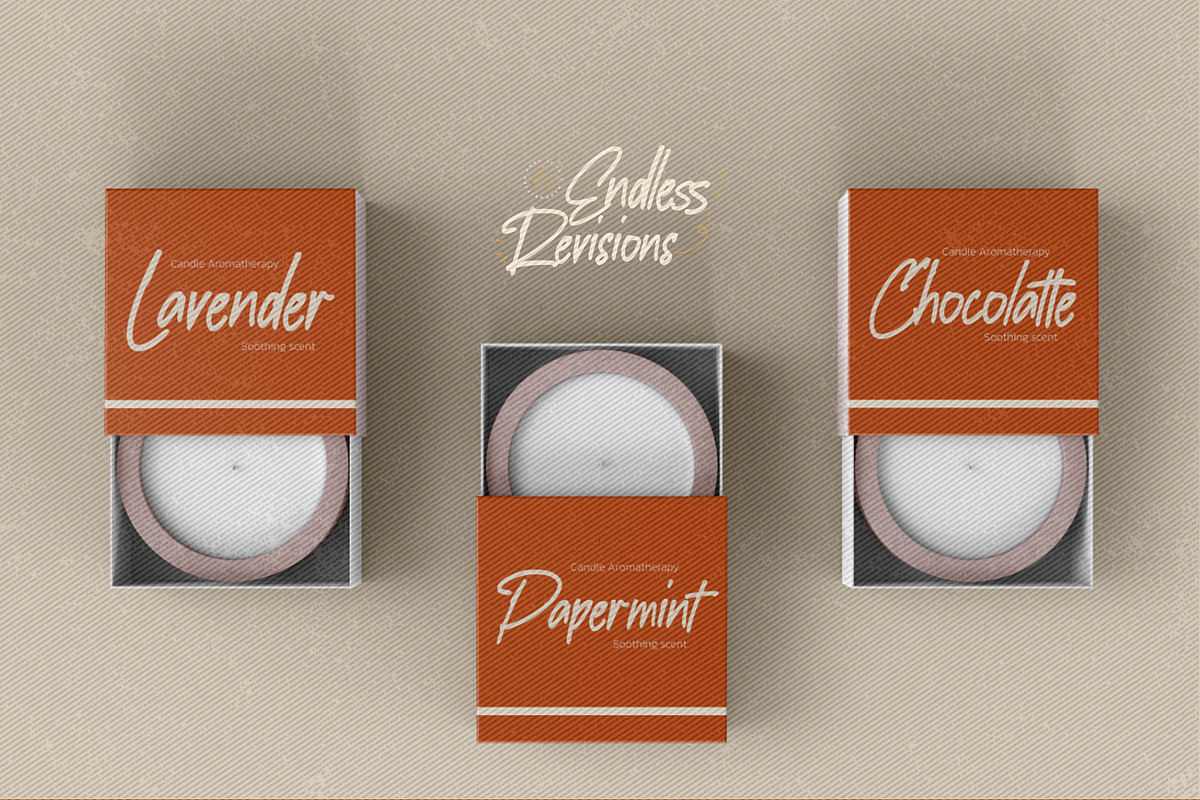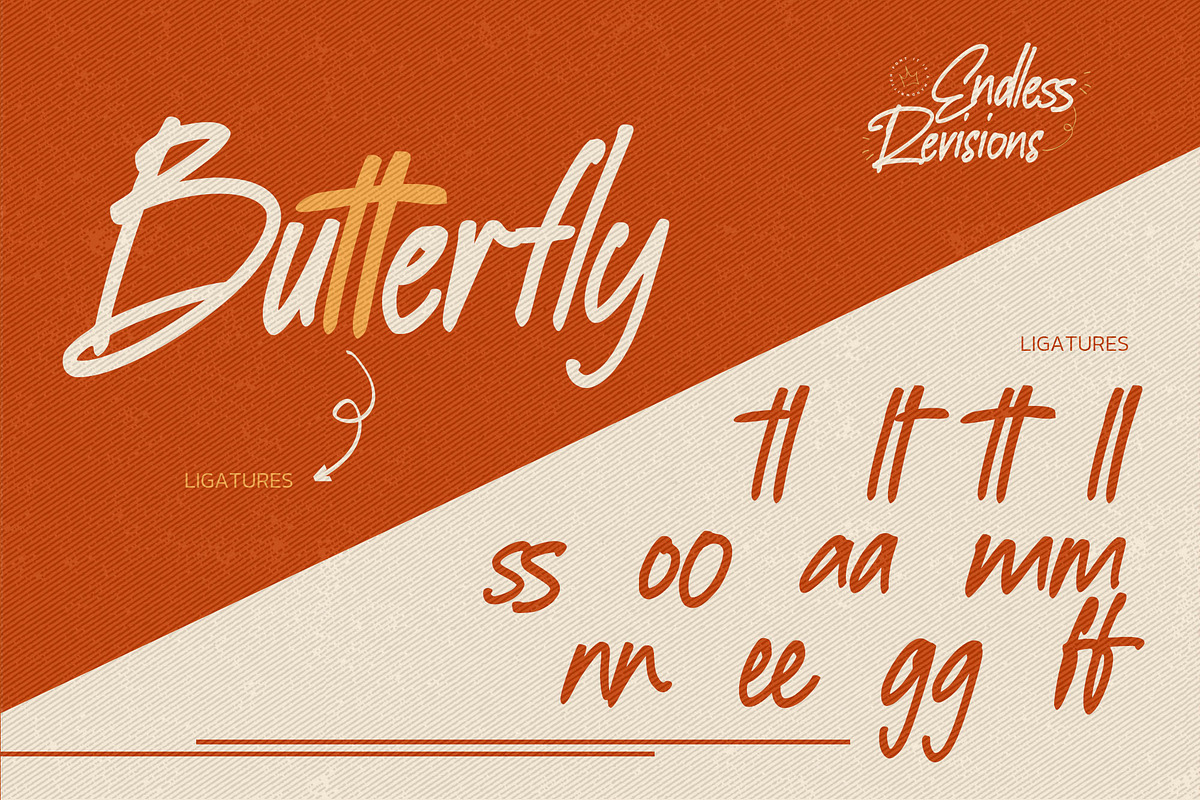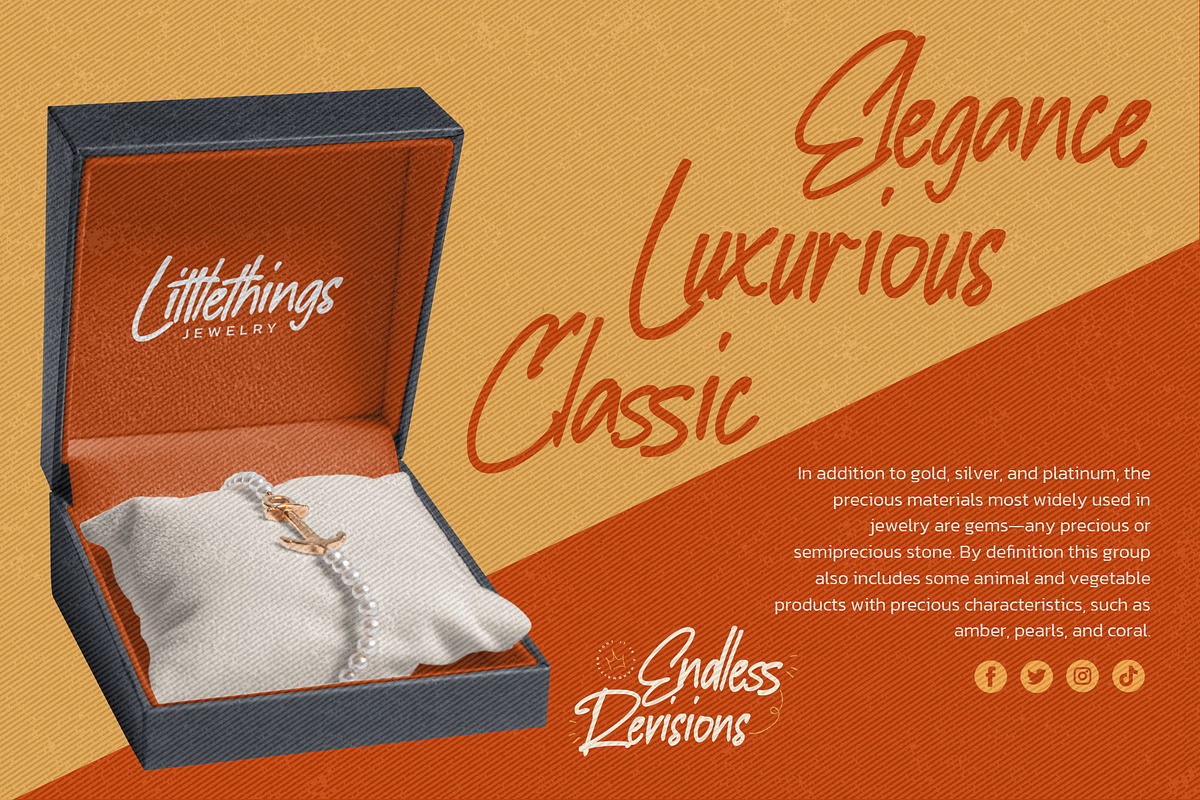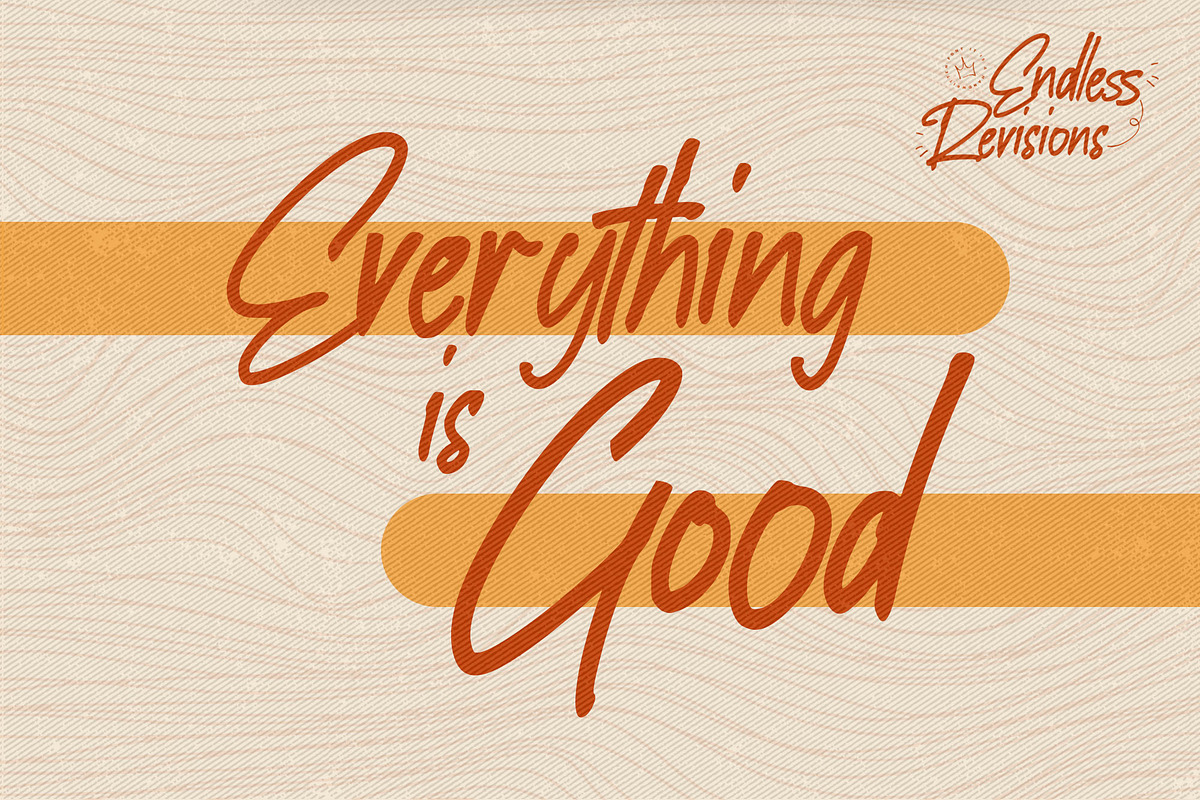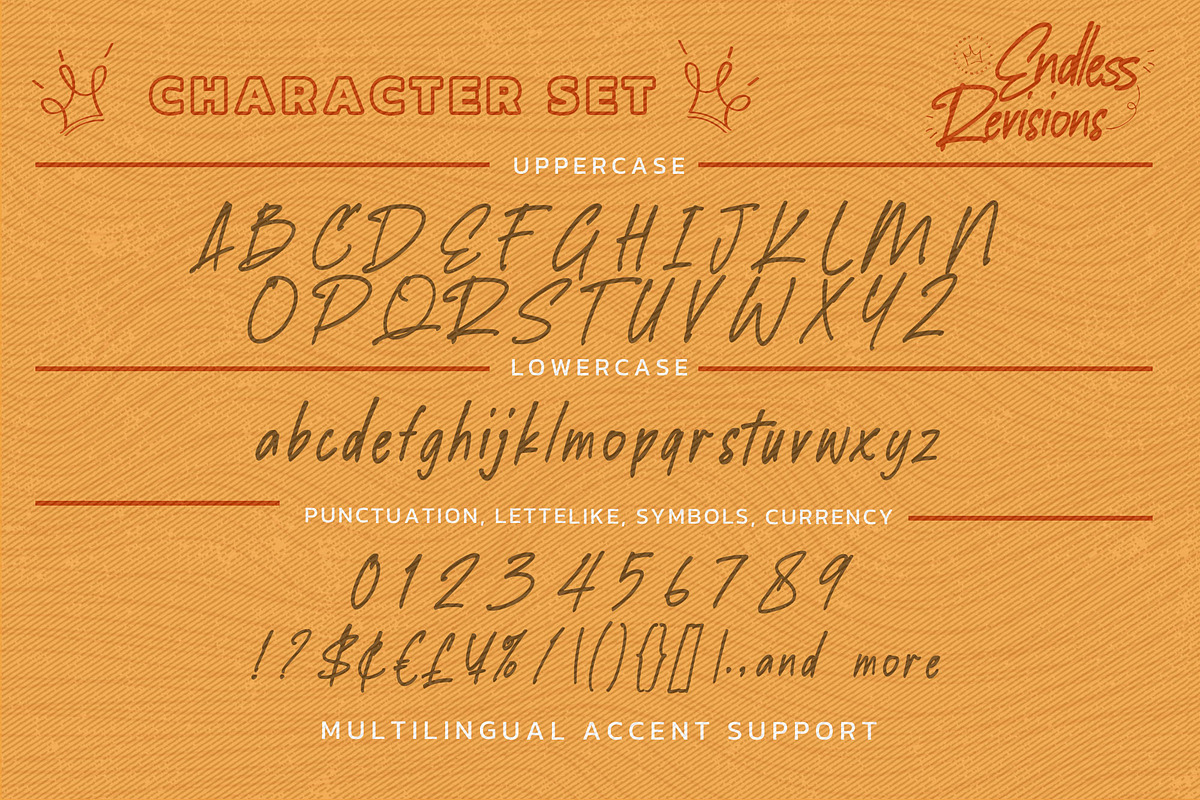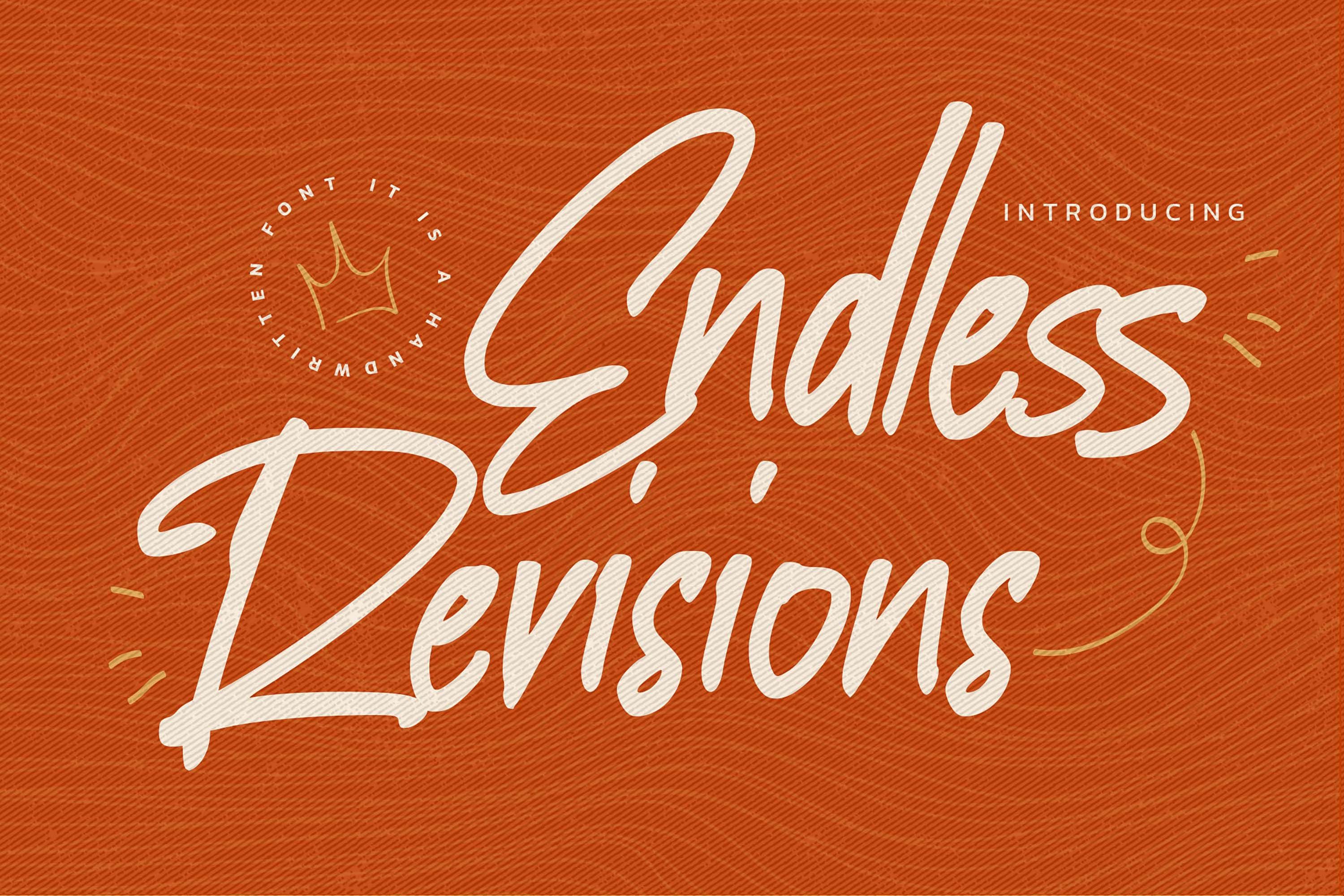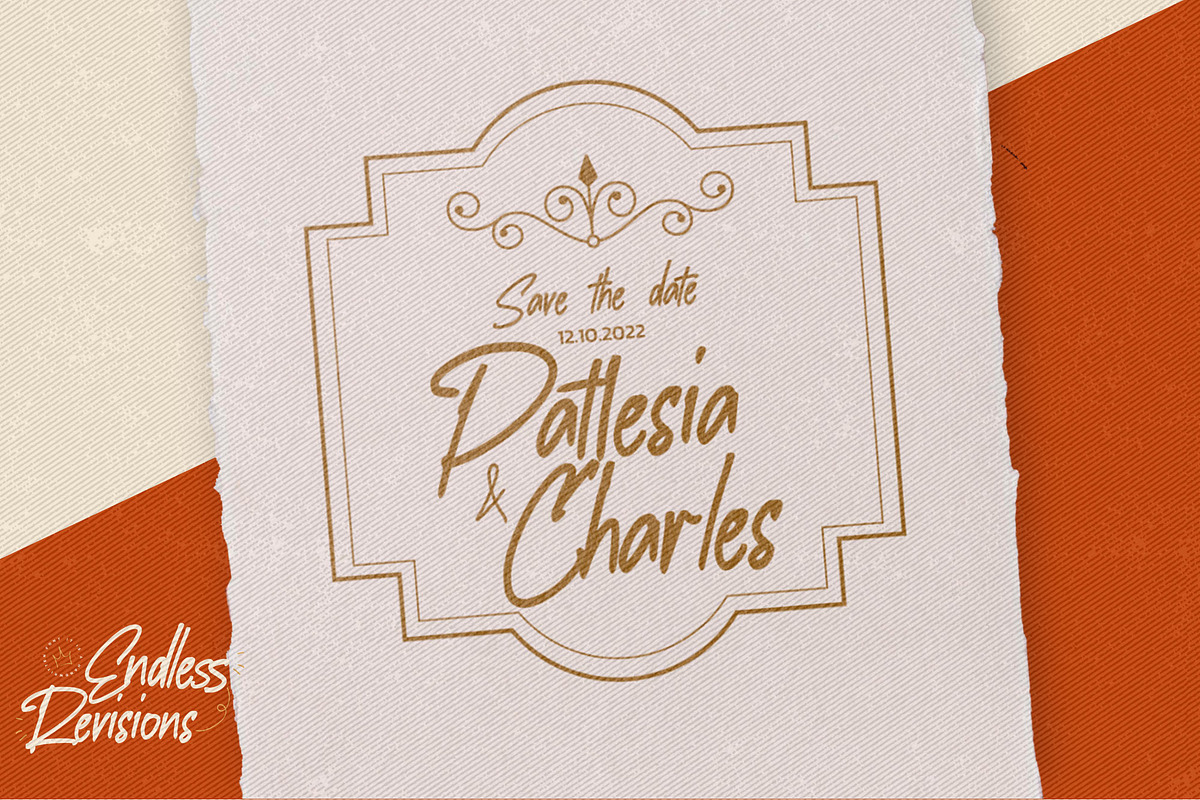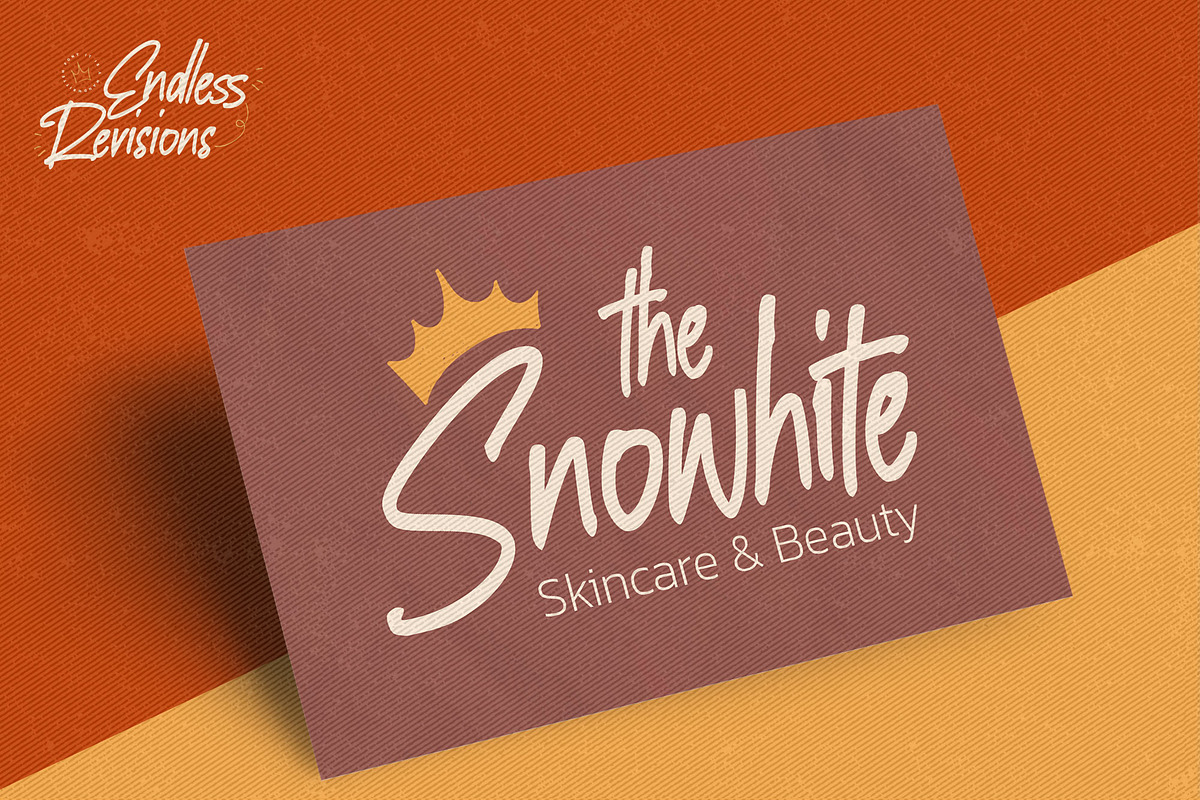
Endless Revisions - Handwritten Font
Hello Everyone, Introduce our new collection Endless Revisions It's A Handwritten Font,This font Stylish Script is great for your creative projects such as watermark on photography, and perfect for logos & branding, photography, invitation, watermark, advertisements, product designs, stationery, wedding designs,label, product packaging, special events or anything that need Signature taste. Endless Revisions is Font Authentic that is written casually and quickly. Then scanned and carefully drawn into vector format.
This handmade font will make your design has a beautiful natural touch for each details. You can activate Ligature glyphs OpenType panel.
- Ligature glyphs